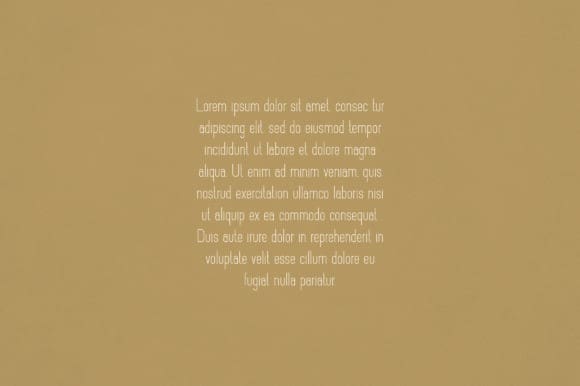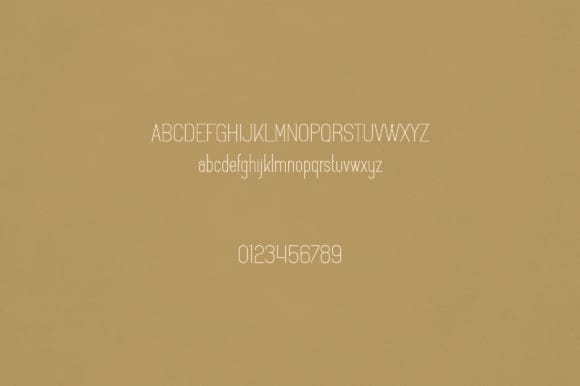
Caddie Font
Caddie Font is an elegant and versatile sans serif font that will make your typography truly unique! It will enchant every logo, branding, headline, or plain text!